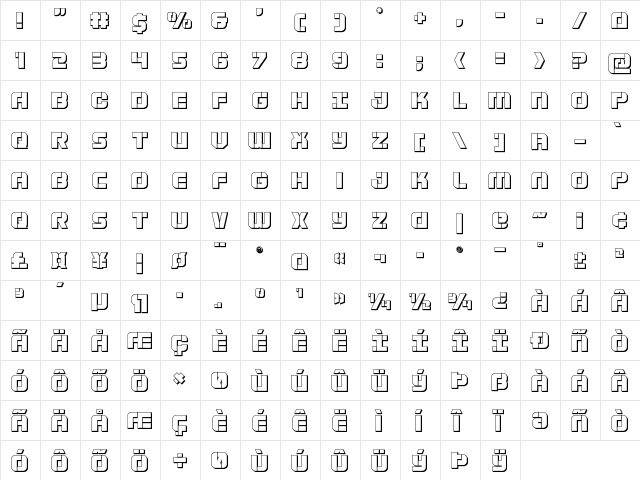
Super Submarine 3D Regular
Design Context for Super Submarine 3D Typeface
Super Submarine 3D is a composed and adaptable typeface that performs quietly and consistently across a wide range of design contexts.